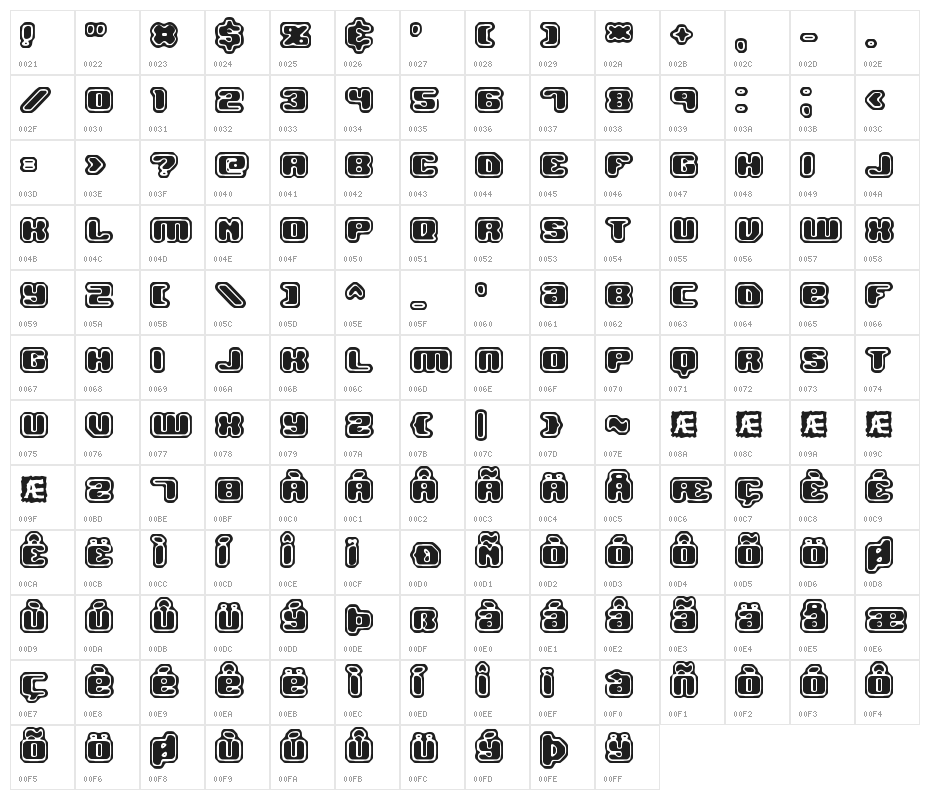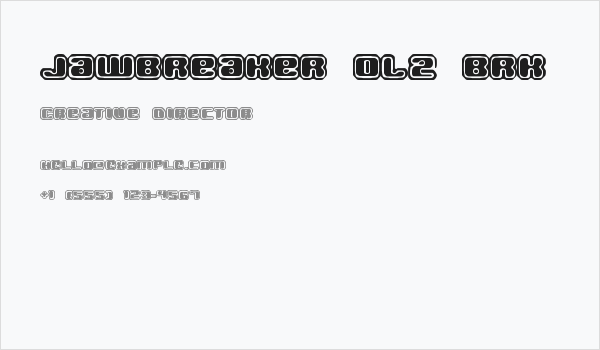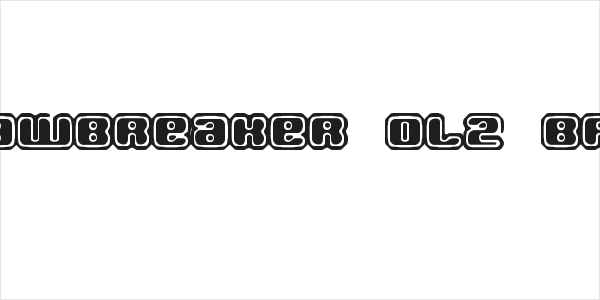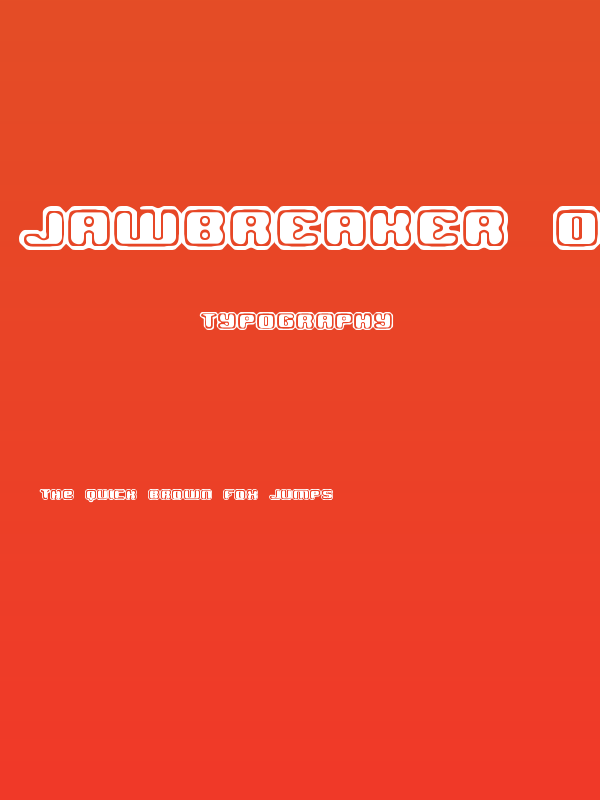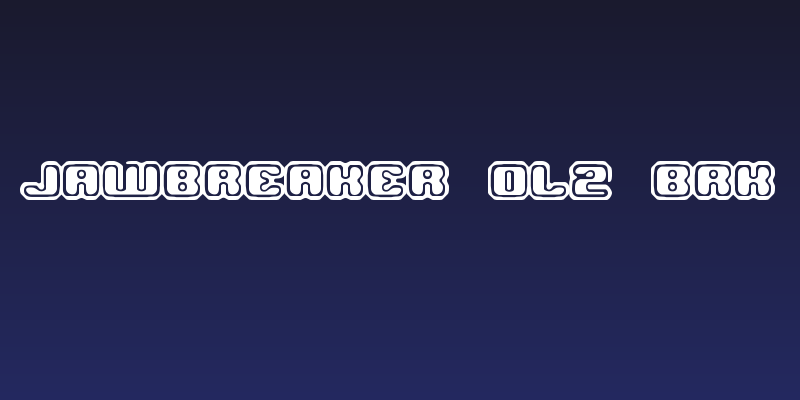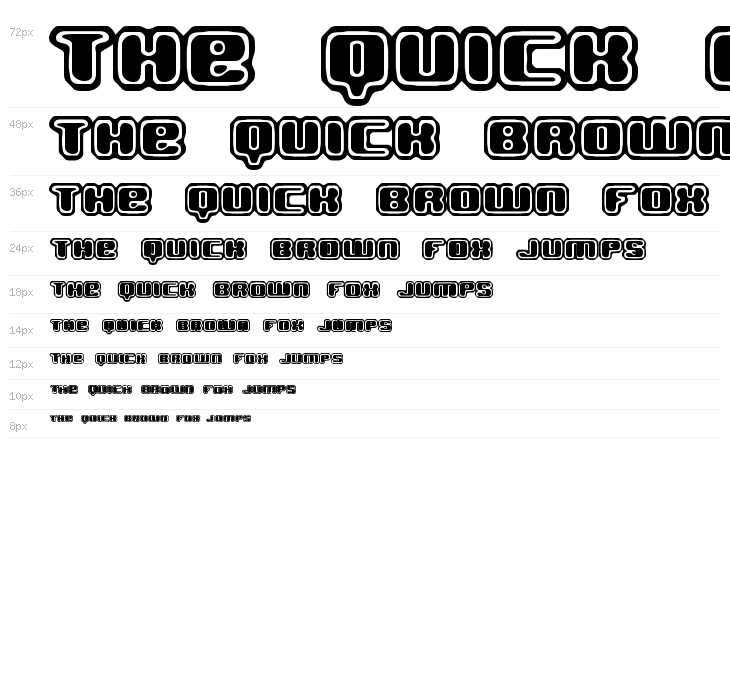
Jawbreaker OL2 BRK Font
Jawbreaker OL2 BRK Description
This font features a bold, playful design with a thick outline that gives each character a three-dimensional appearance. The letters are rounded and have a bubble-like quality, making them stand out with a strong visual impact. The uppercase and lowercase letters maintain a consistent style, with the lowercase being slightly smaller but equally bold. Numbers and special characters follow the same design principles, ensuring uniformity across the font. The overall look is modern and eye-catching, suitable for projects that require a fun and dynamic typeface.
| Proposed Projects | Ideal for children's books, playful branding, posters, and any design needing a fun, dynamic typeface. |